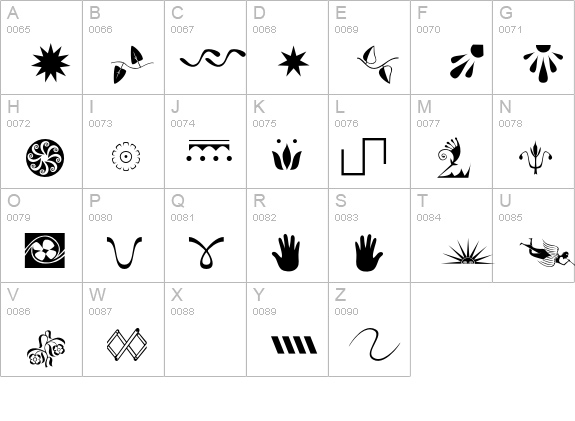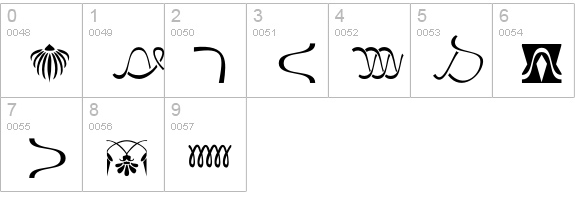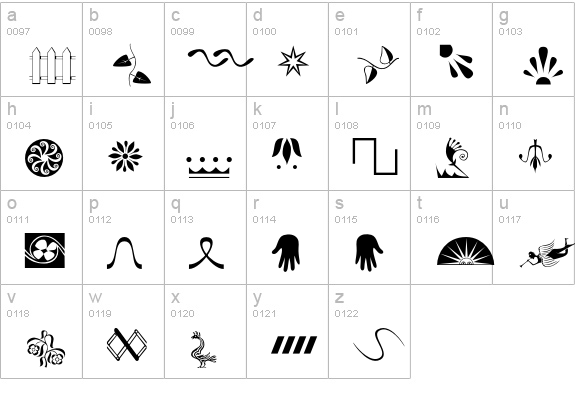
AlbumDrei Font Details
AlbumDrei font is a modern and elegant typeface that combines classic elements with a contemporary twist. Its sleek lines and sophisticated design make it perfect for a wide range of projects, from branding to editorial design. With its clean and stylish appearance, AlbumDrei font adds a touch of class to any design it is used in. The best part about AlbumDrei font is that it is completely free to download at FontsMarket.com. This means that you can easily access this high-quality font without any cost, making it a valuable addition to your font library. Whether you are a designer looking to elevate your projects or a business looking for a professional typeface to use in your branding, AlbumDrei font is the perfect choice. Download it today and start creating stunning designs with ease.